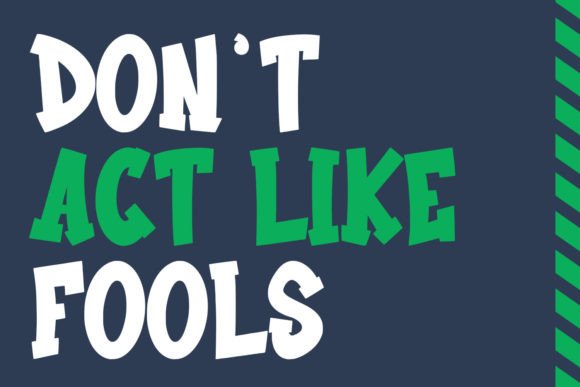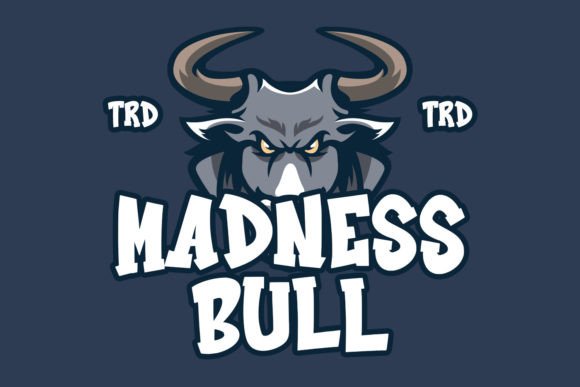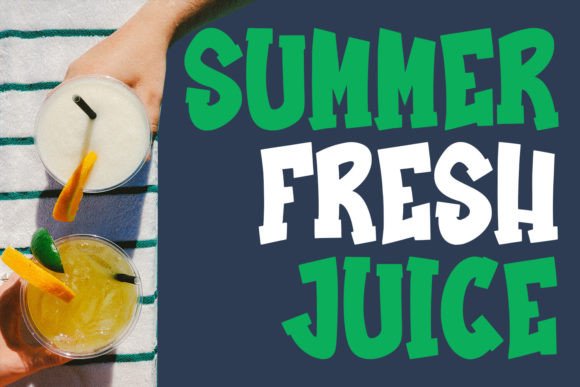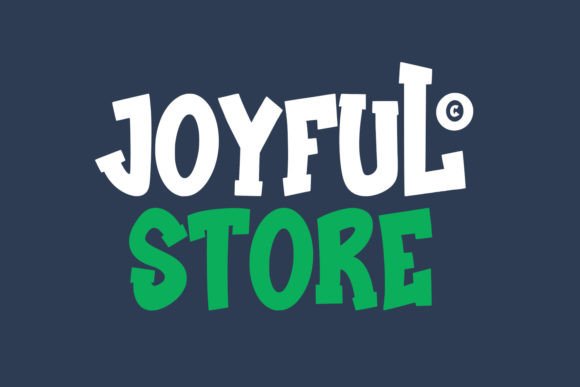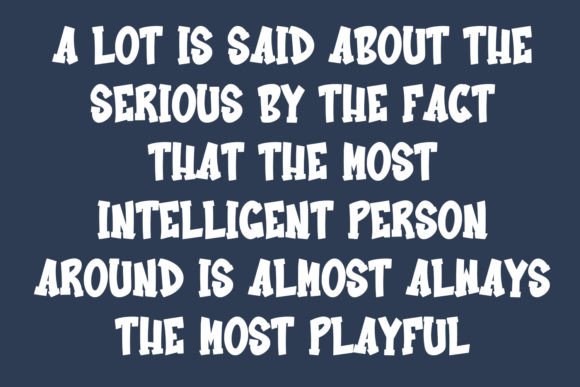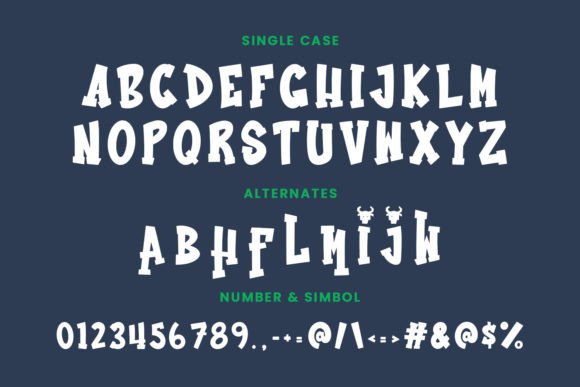
Introduction to Bullzy Font
Have you ever stared at a blank page, wondering how to bring your creative project to life? That’s exactly where I was when I stumbled upon the Bullzy Font. Its playful display style had me hooked, and I couldn’t wait to see what I could create with it.
The Bullzy Font is more than just a pretty face – it’s a powerful design resource that can elevate your work to the next level. With its semi-bold strokes and fun character, it’s perfect for adding a touch of personality to your logo designs, social media posts, or even movie and book titles. And with a transparent background, you can easily combine it with other fonts or graphics to create a stunning visual effect.
Key Features of Bullzy Font
- High-quality font designed for creative projects, offering a unique and modern aesthetic.
- Transparent background, allowing for easy customization and seamless integration with other design elements.
- Unique characteristics, including a bold and playful style, making it perfect for branding, advertising, and editorial design.
Honest Review: Bullzy Font
As a designer, I’m always on the lookout for high-quality fonts to elevate my creative projects. Recently, I stumbled upon the Bullzy Font, and I’m excited to share my honest review with you.
- ✨ Unique and modern design aesthetic that sets it apart from other fonts
- ✨ High quality and crisp typography, making it perfect for digital design
- ✨ Transparent background, allowing for seamless integration with other design elements
- ⚠️ Limited font styles and variations, which might not be suitable for all design projects
- ⚠️ Not ideal for print design, as the font might not be as legible in larger sizes
Overall, I’m impressed with the Bullzy Font, and I think it’s a great addition to any designer’s toolkit. While it may not be perfect, its unique design and high quality make it a valuable design resource for digital projects.
Tips for Getting the Most Out of Bullzy Font
For best results, use Bullzy Font in conjunction with a high-quality design resource. You can also experiment with different font sizes and styles to create a unique look for your creative project.
Bullzy Font is ideal for use in designs that require a high level of professionalism and sophistication, such as business cards, resumes, and marketing materials. It’s also great for use in presentations and documents that require a clean and modern look.